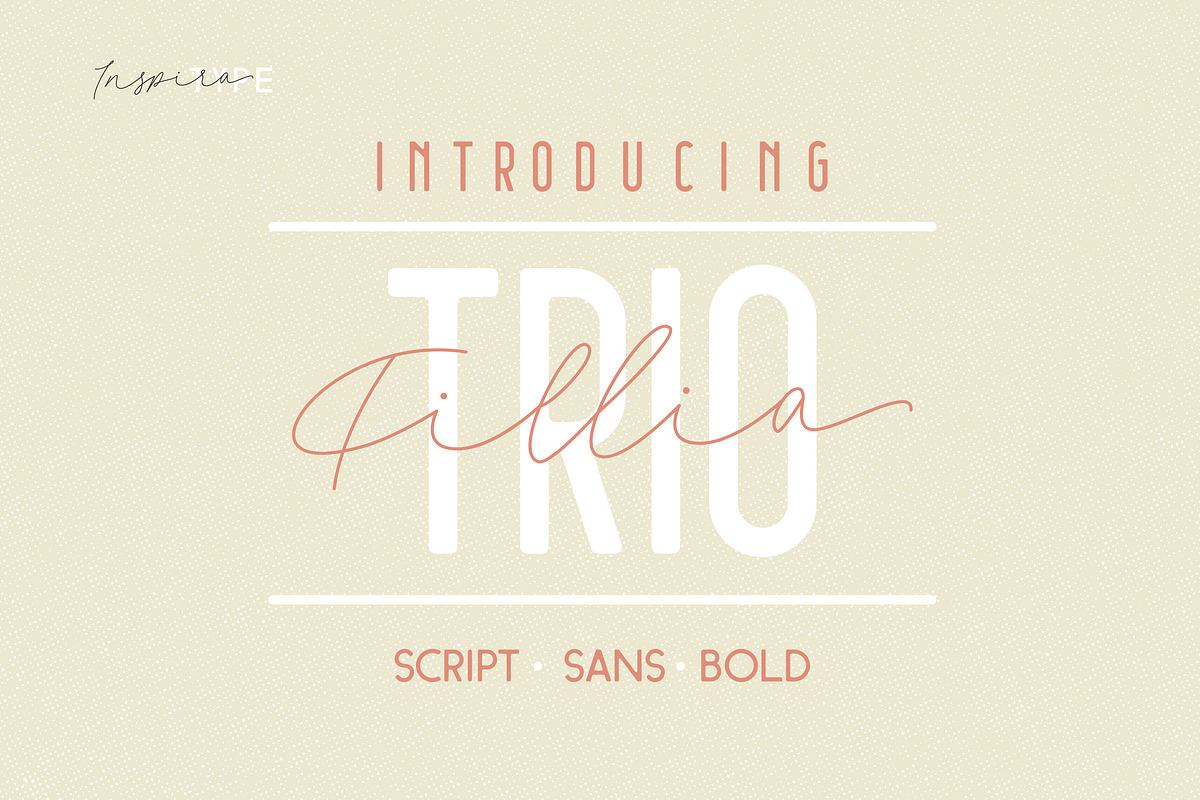
Filia - Script, Sans, & Bold Font Free Download
Filia - Script, Sans, & Bold Font Free Download is a versatile font family that combines three unique styles: elegant script, clean sans serif, and bold, impactful letterforms. This collection is perfect for branding, logos, invitations, website headers, posters, and any project that requires variety and flexibility in typography.
The script font adds a personal, handwritten touch, while the sans serif offers modern clarity and readability. The bold font gives your designs strength and emphasis. Together, they provide endless creative possibilities, allowing you to create cohesive, dynamic, and professional layouts.